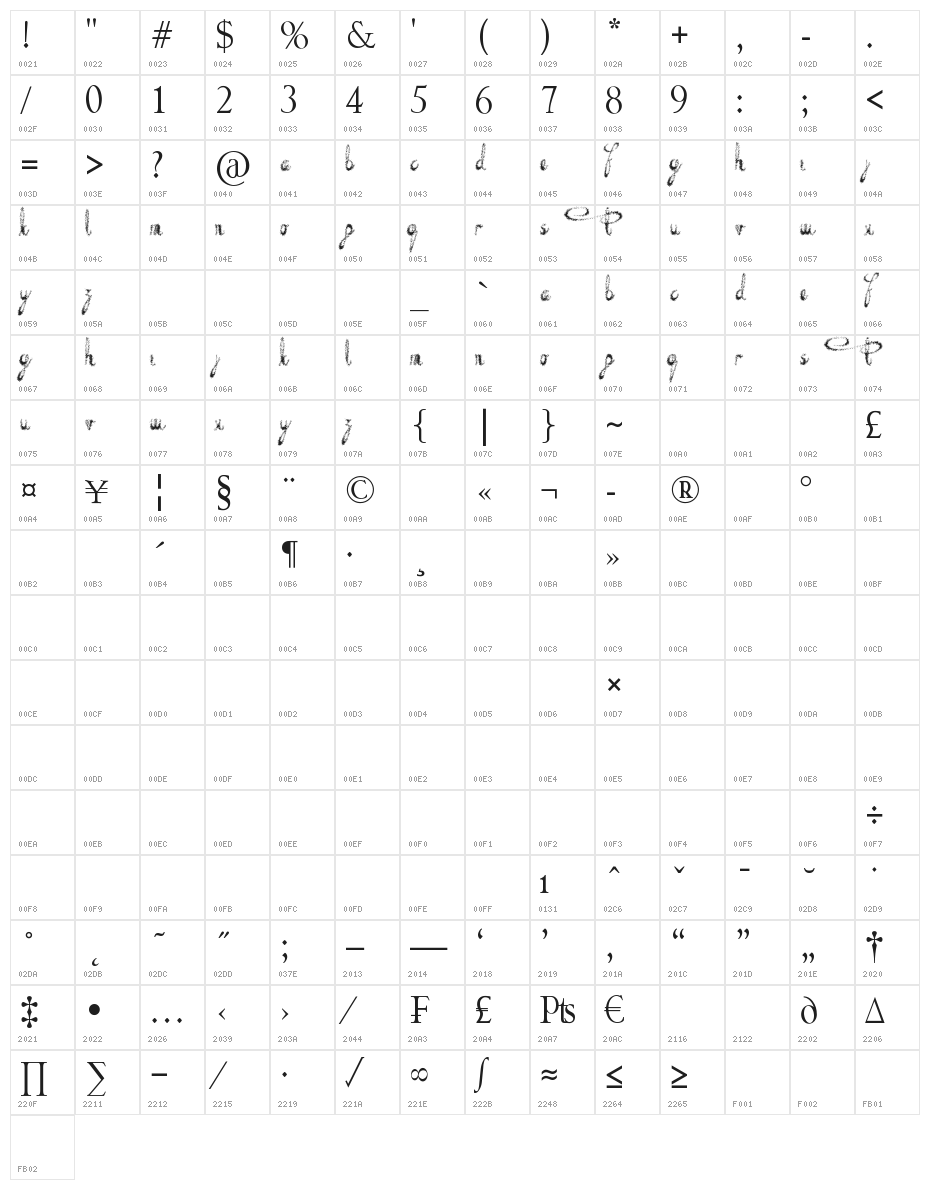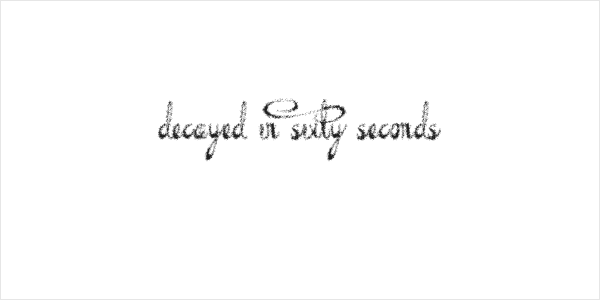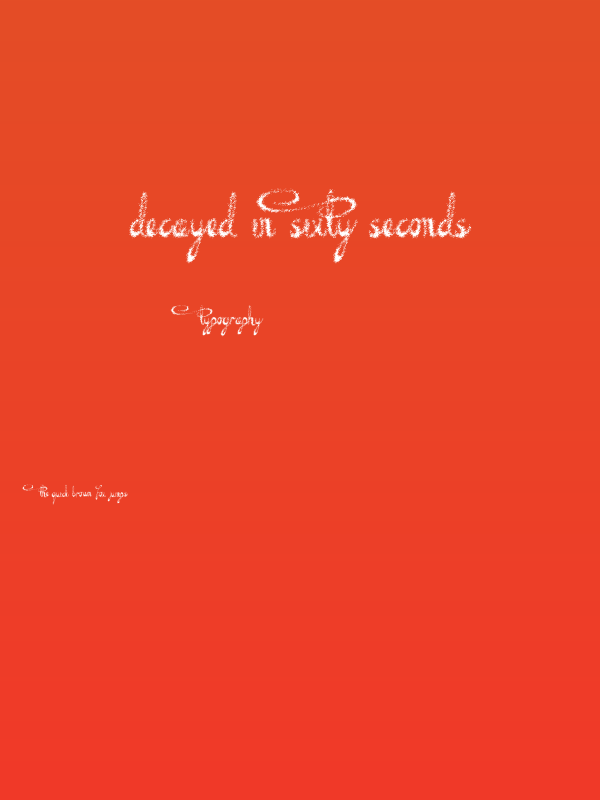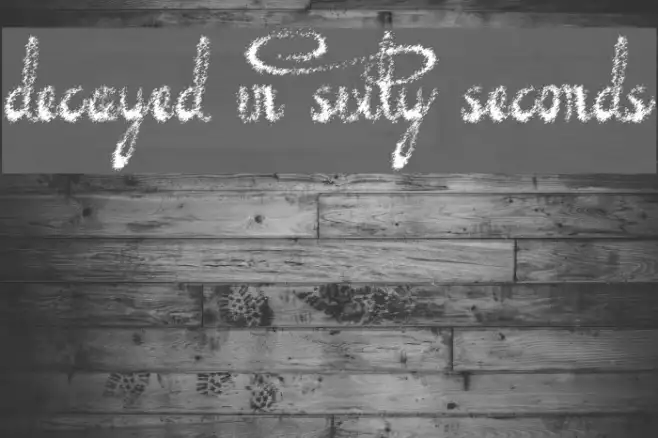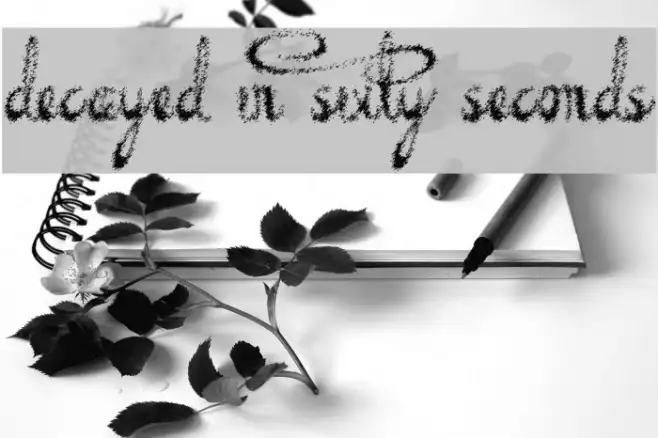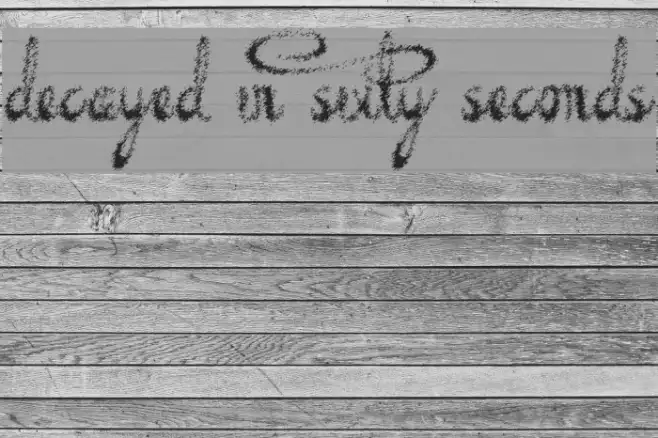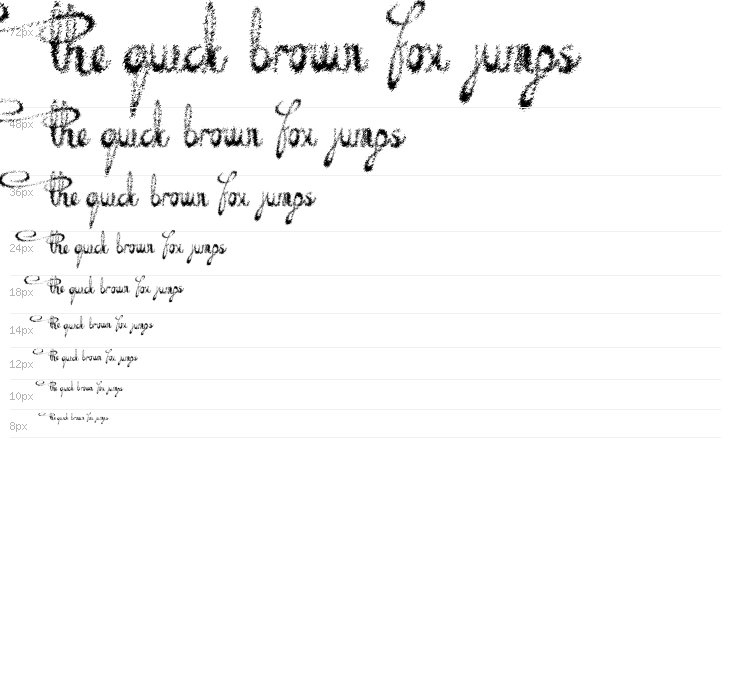
Decayed in Sixty Seconds Font
Decayed in Sixty Seconds Description
This font exhibits a unique, distressed appearance, reminiscent of decayed or eroded surfaces. The uppercase and lowercase letters are intricately designed with a textured, almost crumbling effect, giving them a vintage and weathered look. The numerals maintain a more traditional serif style, offering a stark contrast to the decorative letters. Special characters are included, maintaining the serif style, which complements the overall aesthetic. This font is ideal for projects that require a touch of antiquity or a grunge effect, making it perfect for artistic and creative designs.
| Overall Style | Vintage, Decorative |
| Use Case | Logos, Artistic projects, Vintage designs |
| Proposed Projects | Ideal for vintage posters, album covers, artistic projects, and branding that requires a grunge or aged effect. |